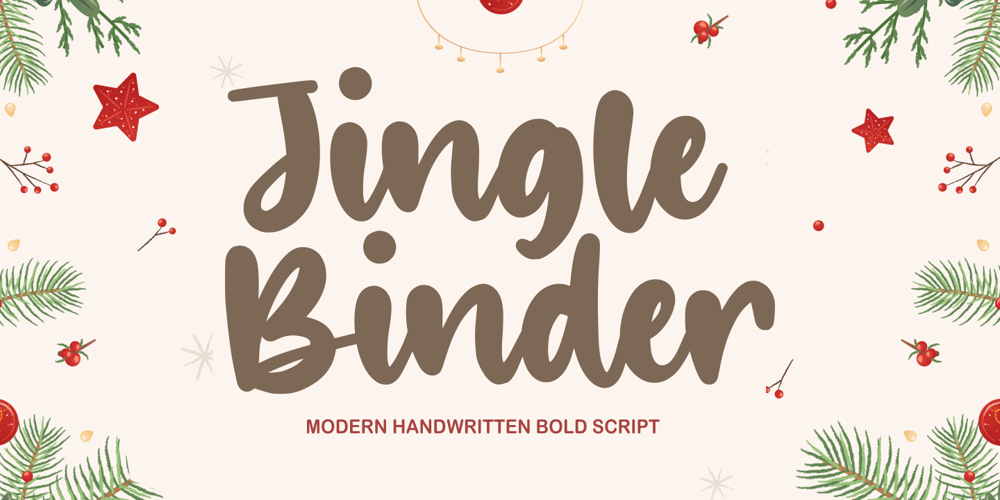
Jingle Binder
Jingle Binder font
Jingle Binder Font Family was designed by Restu Angga and published by Balpirick. Jingle Binder contains 1 styles and family package options. Jingle Binder is a Modern Handwritten Bold Font.Jingle Binder is perfect for product packaging, branding project, magazine, social media, wedding, or just used to express words above the background.Jingle Binder also multilingual support.Enjoy the font, feel free to comment or feedback, send me PM or email.Thank you!